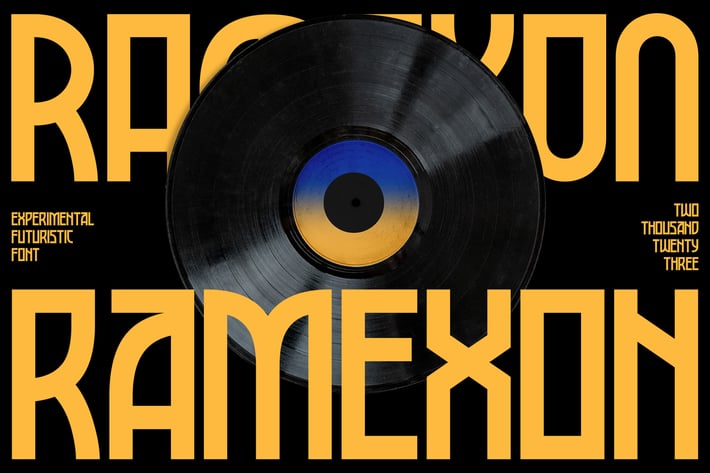
Ramexon - Experimental Futuristic Fonts
Ramexon was inspired by the breakthrough of experimental and contemporary graphic design nowadays. Embracing the anti-design theory to form something new in the market.
Perfectly fit for logo, branding, fashion design, poster, music video, album artwork, cover, book, packaging, merchandise, apparel, moodboard, and many more.